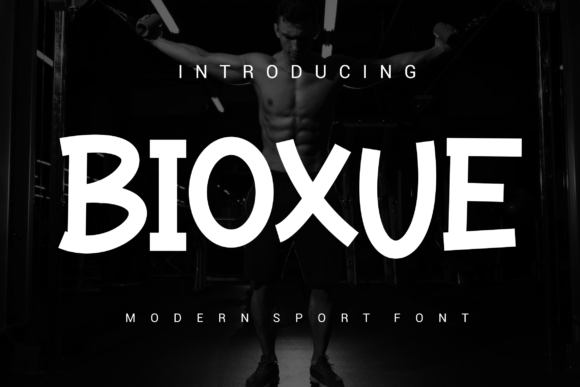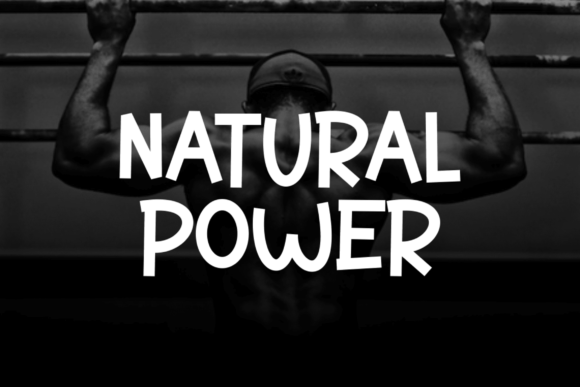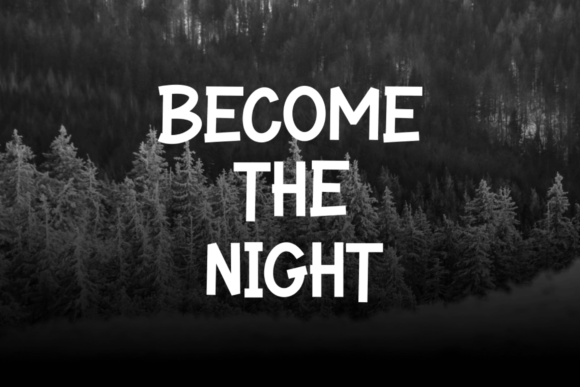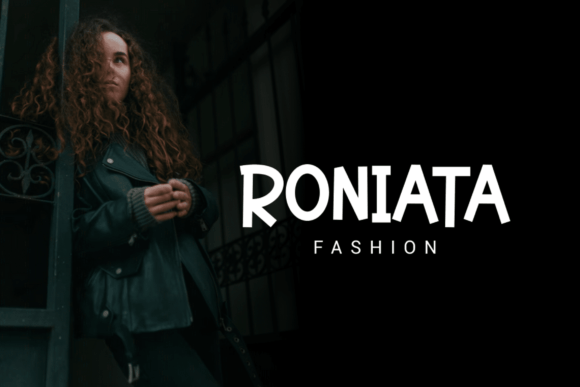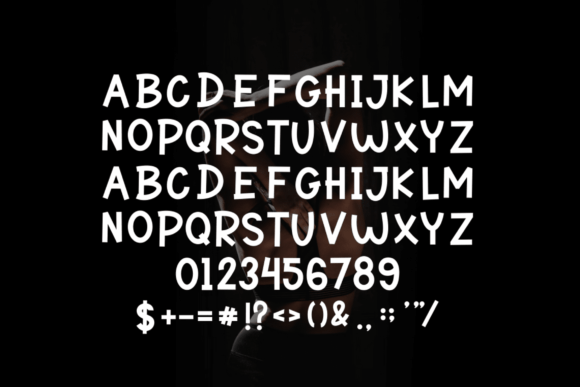
Unlock the Power of Authentic Design with Bioxue Font
Have you ever stared at a blank canvas, waiting for the perfect idea to strike? The blank page can be daunting, but it’s also an opportunity to create something truly unique. As designers, we’re constantly searching for the right tools to bring our vision to life. That’s where Bioxue Font comes in – a bold and authentic display font designed to elevate any branding project.
Bioxue Font is more than just a font – it’s a statement piece that can take your designs from ordinary to extraordinary. Whether you’re working on a logo, t-shirt printing, or e-sport project, Bioxue Font has got you covered. Its versatility and bold character make it an invaluable asset for designers looking to add a touch of authenticity to their work.
Bioxue Font Key Features
- Unique Characteristics: Bioxue Font features a unique blend of traditional and modern elements, resulting in a distinctive and elegant aesthetic.
Bioxue Font Review
I was excited to dive into the Bioxue font and see what it had to offer. As a designer, I appreciate unique and creative fonts, and Bioxue does not disappoint.
- The Bioxue font has a distinct and elegant feel to it. It’s perfect for titles and headings where you want to make a statement.
- The font is highly customizable, with a wide range of weights and styles to choose from.
- The Bioxue font is also highly legible, making it perfect for body text and paragraphs.
- The font may not be the best choice for body text in small sizes, as the letters can become blurry and difficult to read.
- The font may not be suitable for digital displays, as it can appear pixelated and distorted.
Overall, I’m impressed with the Bioxue font. While it has some limitations, it’s a great choice for designers looking for a unique and elegant font. With its high level of customization and legibility, it’s perfect for titles, headings, and body text. Just be sure to use it in the right context, and you’ll be sure to get the desired results.
Getting the Most Out of Bioxue Font
For the best results, use Bioxue Font in conjunction with other modern fonts to create a unique and visually appealing design.
Experiment with different font sizes, colors, and styles to add depth and interest to your design.
Consider using Bioxue Font for headings and titles, and a simpler font for body text to create a clear visual hierarchy.
Bioxue Font is ideal for:
Modern branding and identity design.
Typography-focused design projects.
Headings and titles in